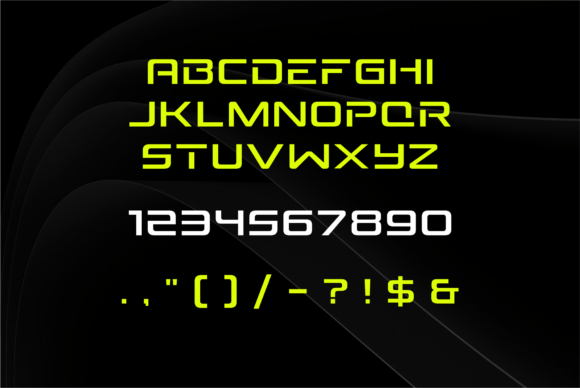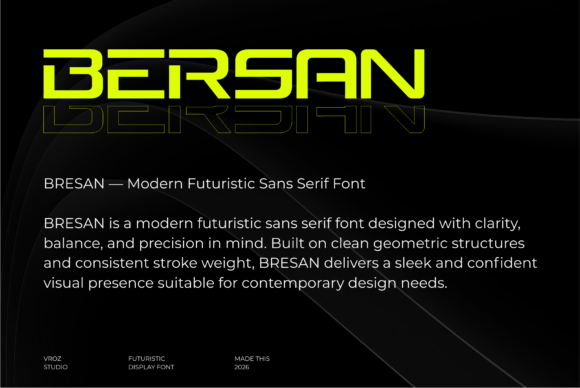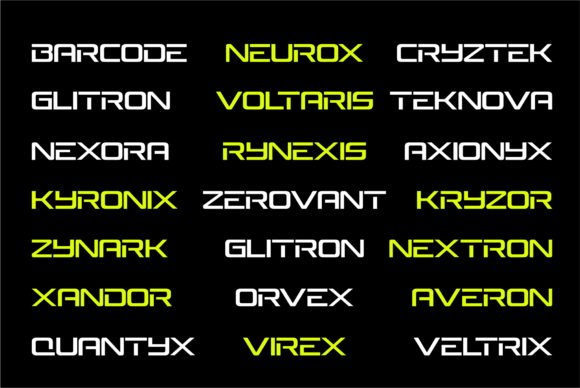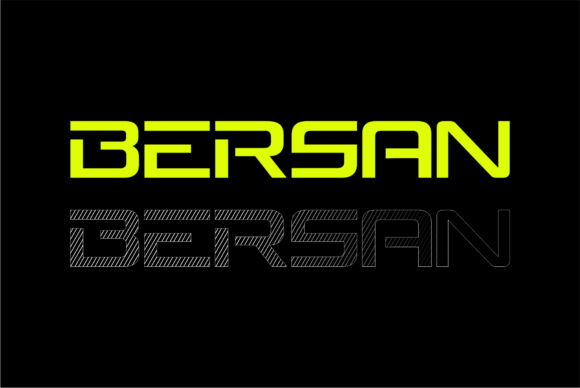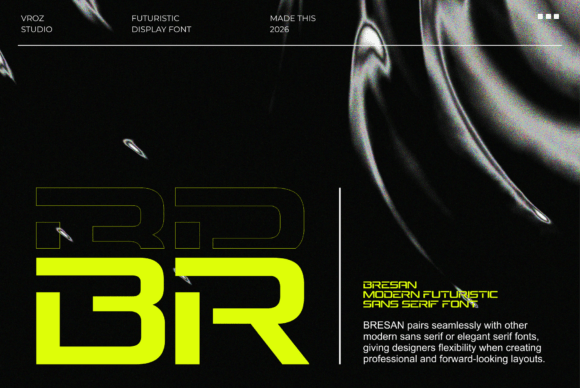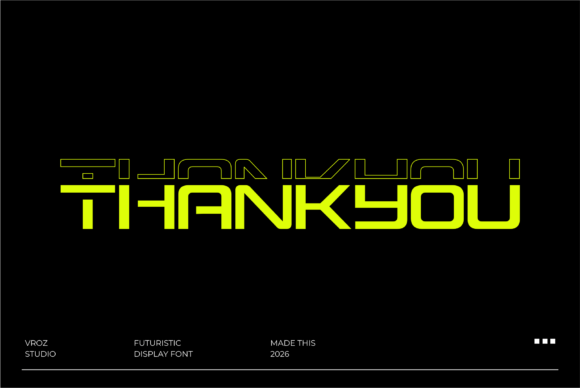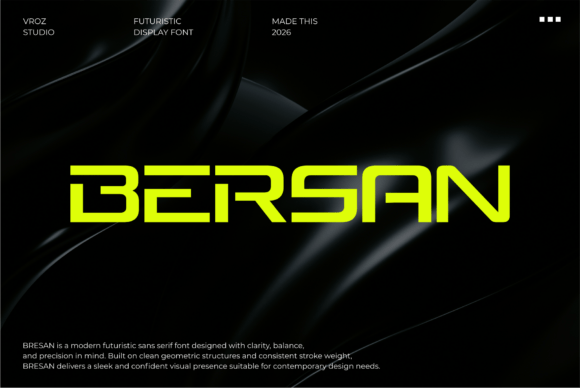
Introducing BERSAN: The Futuristic Modern Sans Serif Display Font
In the world of digital design, a font can make all the difference in communicating a message effectively. BERSAN, a futuristic modern sans serif display font, is here to revolutionize the way you approach your design projects. Crafted with clarity, precision, and contemporary design needs in mind, BERSAN is the perfect choice for designers and crafters looking to elevate their visual style.
Geometric Structure and Clean Design
BERSAN boasts a geometric structure, clean cuts, and smooth transitions, making it a confident and forward-looking visual style perfect for modern digital environments. Its strong yet minimalist character allows it to stand out while maintaining a clean and professional appearance. This font is designed to work seamlessly across a wide range of creative projects, making it an ideal choice for designers who want to make a statement.
Ideal for Modern Design Projects
BERSAN is perfect for a variety of design projects, including:
• Branding: Create a lasting impression with BERSAN’s unique and memorable visual style.
• Technology Projects: BERSAN’s futuristic tone and clean design make it perfect for technology-related projects.
• Gaming Visuals: Add a touch of modernity to your gaming graphics with BERSAN’s bold and confident style.
• Posters: Make a statement with BERSAN’s eye-catching design and clear typography.
• UI/UX Design: Create user-friendly and visually appealing interfaces with BERSAN’s clean and professional design.
• Web Design: Elevate your web design with BERSAN’s modern and responsive typography.
• Digital Products: BERSAN is perfect for digital products that require a futuristic tone and a versatile design.
• Modern Layouts: Create sophisticated layouts with BERSAN’s geometric structure and clean design.
• Creative Projects: BERSAN is ideal for any creative project that requires a modern and confident visual style.
Pairing Options
BERSAN pairs beautifully with other modern sans serif or classic serif fonts, giving designers flexibility when building sophisticated layouts. This versatility makes BERSAN a reliable choice for projects that require a futuristic tone with a timeless foundation.
• Geometric Structure: BERSAN’s geometric structure provides a clean and modern visual style.
• Clean Cuts and Smooth Transitions: The font’s clean cuts and smooth transitions create a confident and forward-looking design.
• Strong yet Minimalist Character: BERSAN’s strong yet minimalist character allows it to stand out while maintaining a clean and professional appearance.
• Versatile and Timeless Foundation: BERSAN provides a versatile and timeless foundation for any design project.
In conclusion, BERSAN is a futuristic modern sans serif display font that is perfect for designers and crafters looking to elevate their visual style. With its geometric structure, clean cuts, and smooth transitions, BERSAN delivers a confident and forward-looking visual style perfect for modern digital environments. Its versatility and timeless foundation make it an ideal choice for a wide range of creative projects. Whether you’re working on branding, technology projects, gaming visuals, posters, UI/UX design, web design, digital products, modern layouts, or creative projects, BERSAN is the perfect choice.